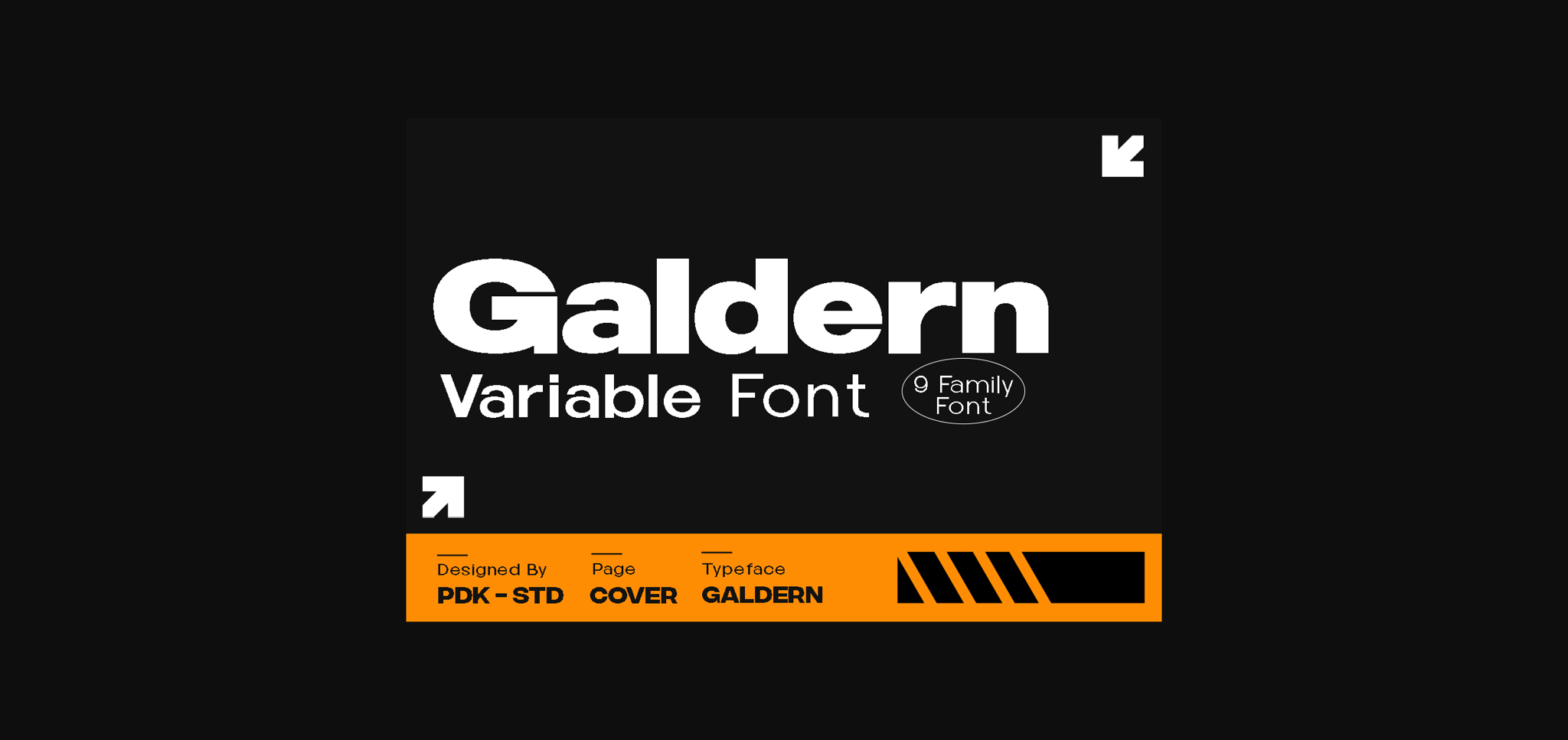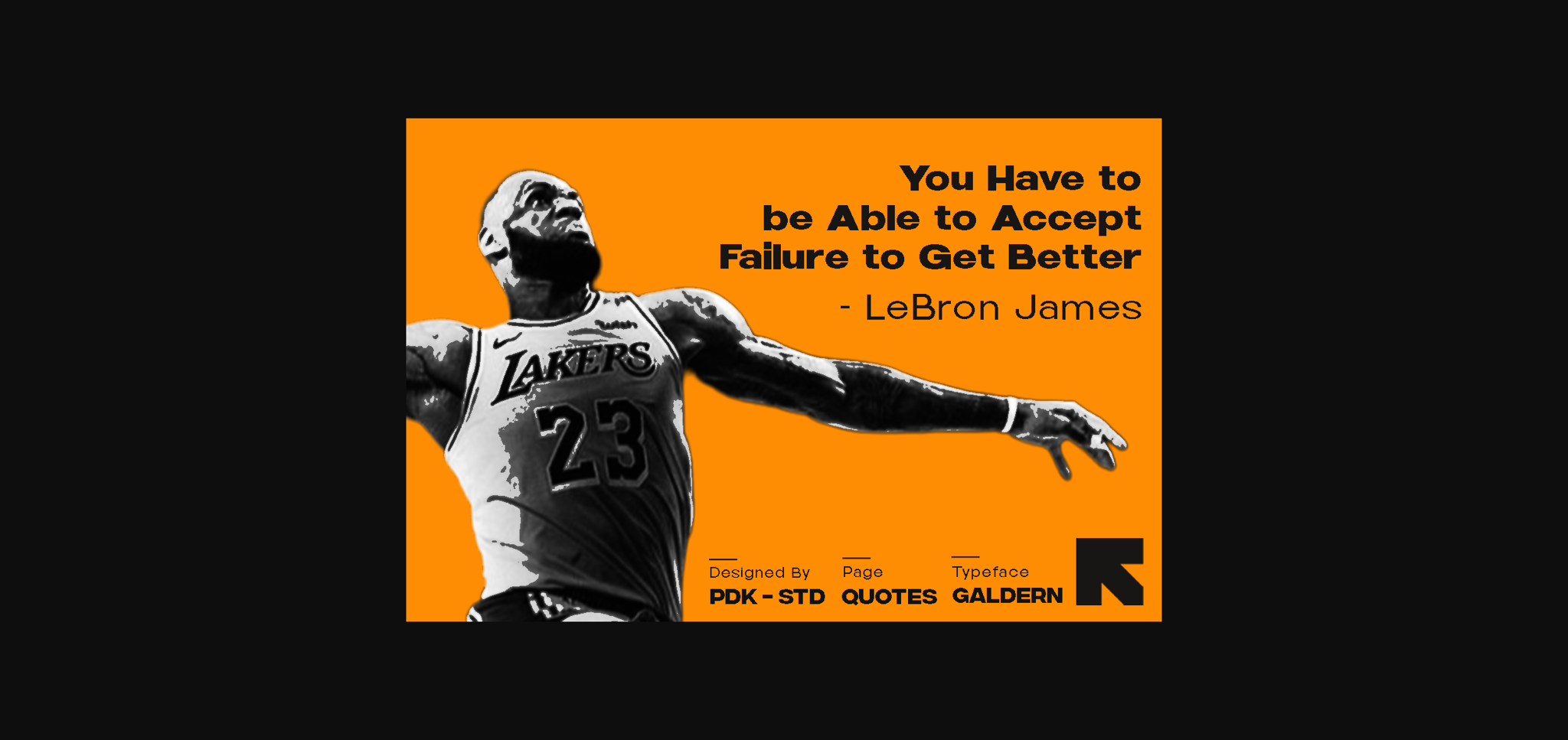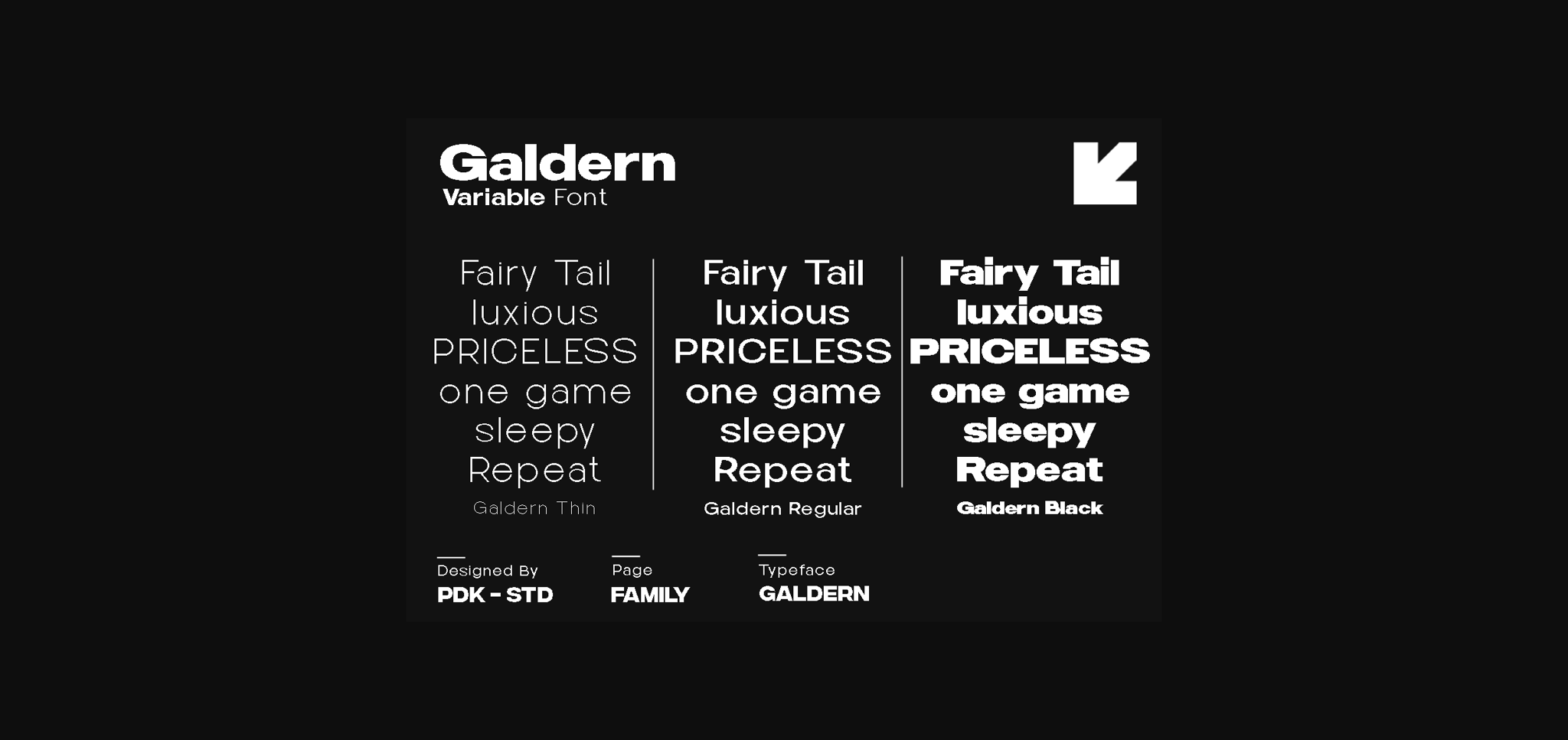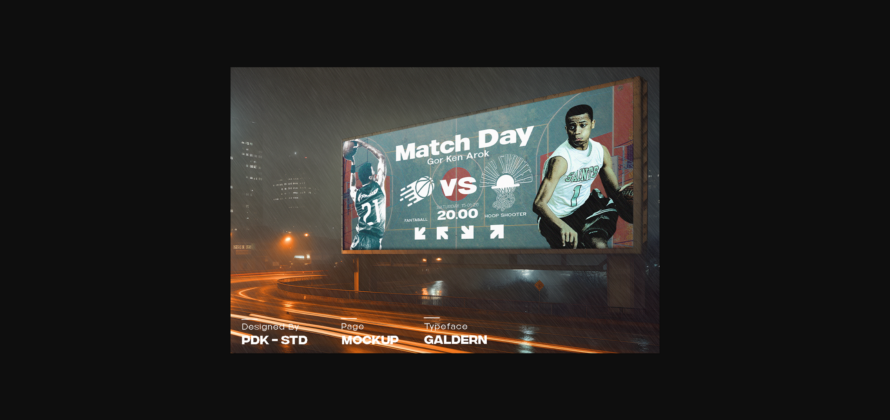
About Galdern Font
Galdern is a geometric sans serif font family with unique characters for a touch of distinction. Simple yet sophisticated, this typeface design gives a clean and modern appearance while carrying some almost retro tones.